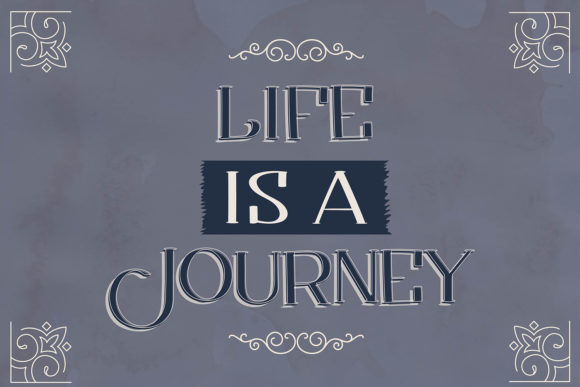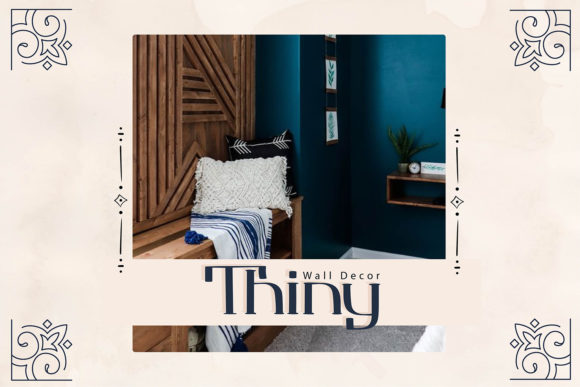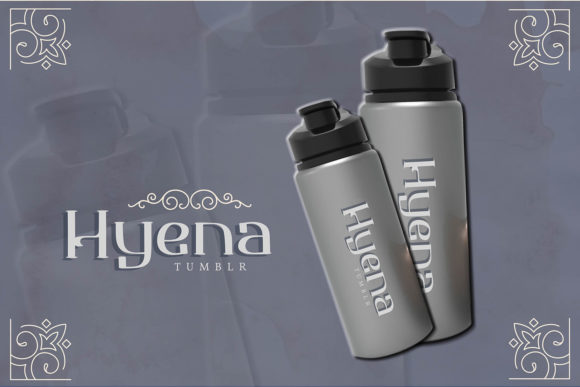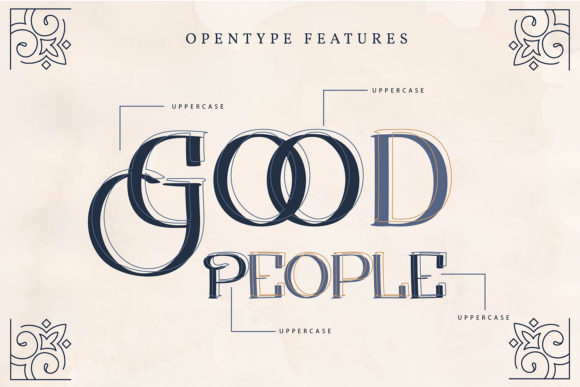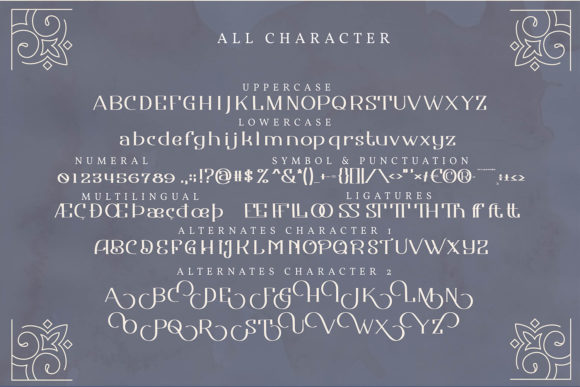
An Honest Review of Colvert Font
- ✅ Elegant and bold look that’s perfect for logos, branding, invitations, and more
- ✨ PUA encoded for easy access to glyphs and swashes
- 💕 Highly versatile and can be used for various design projects, from social media posts to wedding designs
- 👍 Well-suited for both digital and print designs
While Colvert Font is an amazing font, there are a few things to keep in mind: 🤔
- ⚠️ Some users may find the font a bit too ornate for certain projects
- ⚠️ Not ideal for body text, as it’s best suited for display purposes
The Designer Inspiration Behind Colvert Font
Colvert Font was inspired by the classic typography of the early 20th century. The designer, who wishes to remain anonymous, wanted to create a font that was both elegant and bold, with a touch of vintage charm. The result is a font that’s perfect for designers, crafters, and creative hobbyists who want to add a touch of sophistication to their designs.
| Font Name | Colvert Font |
| Author | Vunira |
Q: Is Colvert Font suitable for body text?
A: No, Colvert Font is best suited for display purposes and not ideal for body text.